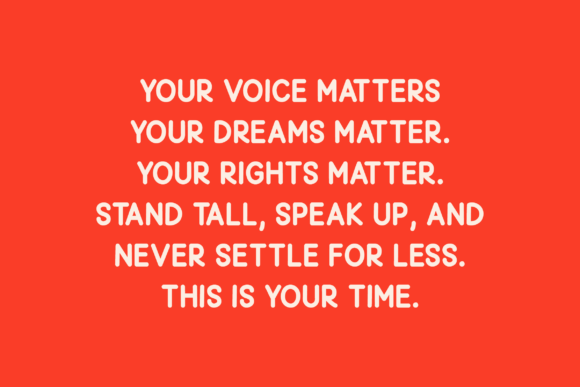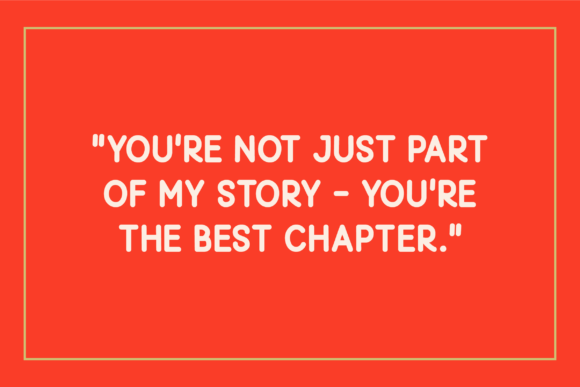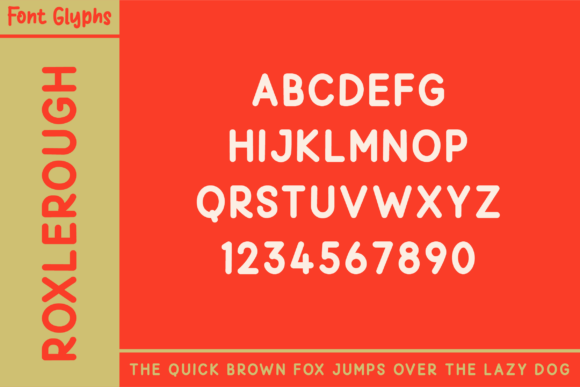
Introduction to Roxlerough Font
Enter the Roxlerough Font, a quirky all caps font that’s perfect for adding a touch of whimsy to your social media posts, craft projects, or even a custom t-shirt. With its high-quality design and transparent background, this font is a valuable resource for anyone looking to elevate their creative projects. Whether you’re a seasoned designer or a DIY enthusiast, the Roxlerough Font is sure to become a go-to design resource.
Key Features of Roxlerough Font
- High-quality, unique design for creative projects, ideal as a design resource for artists and designers.
- Features a transparent background, allowing for seamless integration into various design elements and backgrounds.
- Includes multiple font weights and styles, providing flexibility for designers to customize their creative projects.
- Designed with a high resolution (300 DPI) for crisp and clear readability, making it suitable for both digital and print applications.
- A free, versatile font perfect for adding a unique touch to various design projects, from logos and branding to typography and more.
Honest Review: Roxlerough Font
I recently had the opportunity to work with the Roxlerough Font, and I’m excited to share my honest review. As a designer, I’m always on the lookout for high-quality design resources that can elevate my creative projects.
- ✨ The font’s unique, hand-drawn style adds a touch of personality to any design project.
- ✨ The font is highly customizable, making it easy to adjust to fit your specific design needs.
- ✨ The transparent background option is a game-changer for designers who want to create seamless, layered designs.
- ⚠️ The font may not be suitable for projects that require a more traditional, formal font style.
- ⚠️ The font’s customization options can be overwhelming for beginners, so it’s recommended to practice using the font before diving into a large project.
Overall, I’m impressed with the Roxlerough Font and would recommend it to designers looking for a unique, high-quality font to add to their design arsenal.
How to Use Roxlerough Font
Tips for Getting the Most Out of Roxlerough Font
To get the most out of the Roxlerough Font, experiment with different font sizes, colors, and combinations. Use it in conjunction with other design elements to create unique and eye-catching designs. Don’t be afraid to try new things and push the boundaries of what’s possible with this high-quality design resource.
The Roxlerough Font is perfect for a variety of creative projects, including branding, advertising, and digital design. Use it for text overlays, headings, or as a design element to add a personal touch to your designs. Its transparent background makes it ideal for creating unique and eye-catching designs that stand out from the crowd.